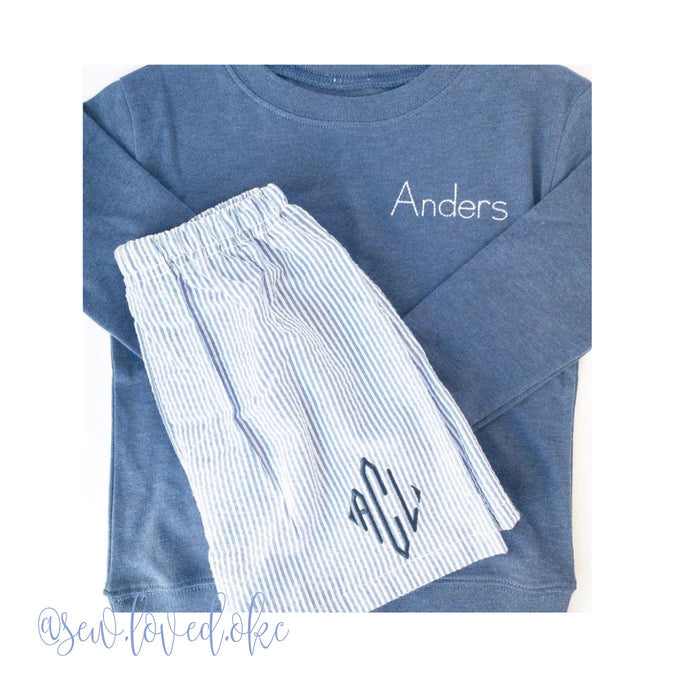
Maddie Print Handstitch Embroidery Font for machine embroidery
Maddie Print Handstitch Embroidery Font
Elevate your crafting with the Maddie Print Handstitch Embroidery Font. This unique embroidery font mimics a hand-stitched look, perfect for adding a personal touch to your projects!
Featuring both uppercase and lowercase letters A-Z, this triple bean stitch font is compatible with a range of machines. Each size fits within a 4x4 hoop or smaller, making it versatile for various applications.